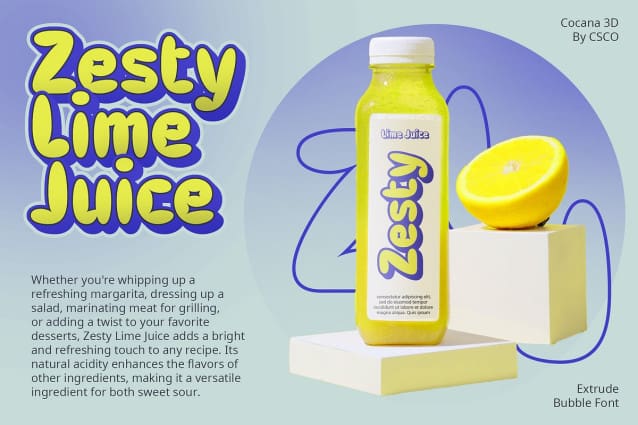
Cocana 3D Font
Cocana 3D Font a delightful round shape reminiscent of bubbles, infusing any design with a sense of fun and whimsy. Its playful appearance adds a touch of cheer to any display project.
Captivating 3D Effects With its dynamic 3D effects, This font pops off the page, ensuring that your display materials catch the eye and make a lasting impression. Its depth adds visual intrigue and dimensionality.
Perfect for Eye-Catching Displays Tailored for eye-catching displays, This font excels in drawing attention to your message. Whether used in advertisements, posters, or digital banners, its bubbly charm commands attention.
Versatile and Fun Beyond its charming appearance, This font offers versatility in application. From branding projects to event promotions, its playful yet professional vibe suits a variety of design needs.
Fun and Dynamic This font emerges as a fun and dynamic display typeface, perfect for adding a playful touch to any design. With its bubble-inspired design and captivating 3D effects, it’s sure to make your projects stand out in style.